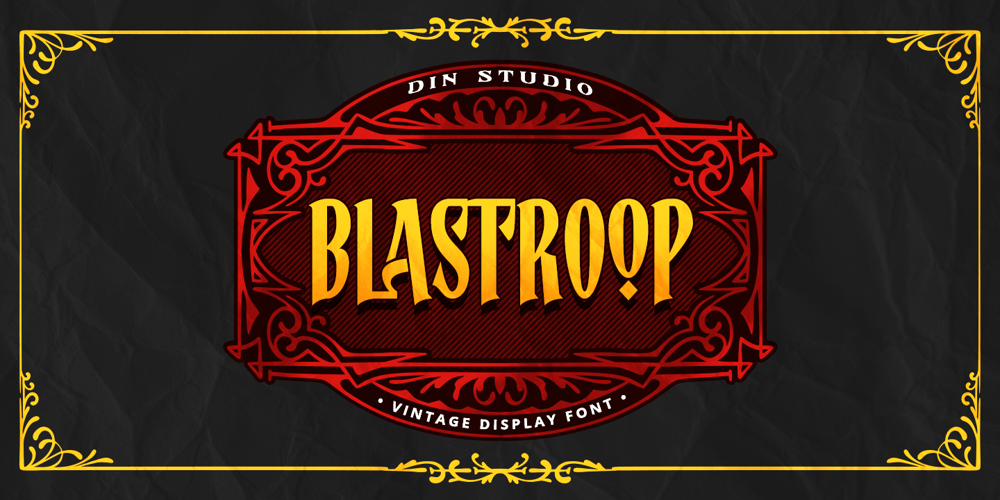
Blastroop Font Family was designed by Donis Miftahudin and published by Din Studio. Blastroop contains 1 styles and family package options. Introducing Blastroop – a vintage-inspired font that brings a touch of classic charm to your designs. Crafted in all capital letters with a light, non-bold weight, Blastroop offers a timeless appeal with its consistent proportions. The subtle, irregular outlines, featuring gentle curves and angles, add a handcrafted feel that enhances its vintage aesthetic. As an extra, this font gives ornaments. In addition, enjoy the features here.Features: Alternates Ligatures Multilingual Supports PUA Encoded Numerals and Punctuations Blastroop fits in logos, posters, flyers, branding materials, print media, editorial layouts, and many more designs. Find out more ways to use this font by taking a look at the font preview.Thanks for purchasing our fonts. Hopefully, you have a great time using our font. Feel free to contact us anytime for further information or when you have trouble with the font. Thanks a lot and happy designing.